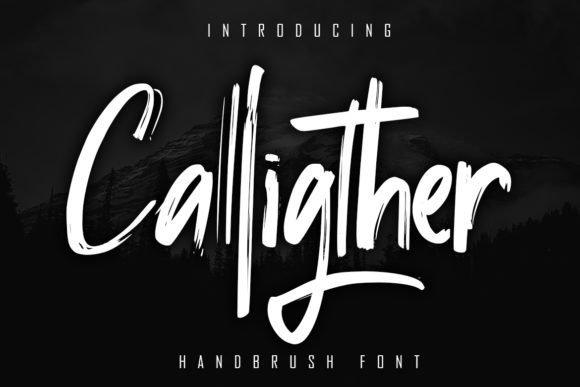
The Power of Calligther Font: Elevate Your Designs with Bold and Chunky Lettering
I’ll never forget the design project that led me to discover Calligther Font. I was working on a branding project for a local boutique, and I needed a font that would make their logo stand out. After hours of searching, I stumbled upon Calligther, and it was love at first sight! The bold, chunky lettering instantly caught my attention, and I knew I had found the perfect fit. In this article, I’ll share my experience with Calligther, its features, and how to make the most of this amazing font.
A Personal Review: What I Love About Calligther
Here’s what makes Calligther a standout font:
- ✨ Unique and eye-catching design: Calligther’s bold and chunky lettering makes it perfect for headlines, titles, and display text.
- ✅ Easy to read: Despite its boldness, Calligther remains surprisingly legible, even at smaller sizes.
- 💫 Versatile: This font can be used for a wide range of projects, from branding and advertising to crafting and DIY projects.
While Calligther is an excellent font, it’s not without its quirks:
- 🤔 Limited use for body text: Due to its boldness, Calligther is best suited for display text and headlines. It may not be the best choice for longer blocks of text.
- ⚠️ Kerning issues at smaller sizes: Like many bold fonts, Calligther may require some manual kerning adjustments at smaller sizes to ensure optimal readability.
A Practical Guide to Using Calligther
- Explore stylistic alternates and glyphs to add more variety to your text.
The Story Behind Calligther
Calligther was created by a talented font designer who drew inspiration from traditional brush pen lettering. The designer’s goal was to create a font that would capture the essence of hand-drawn lettering while still being legible and versatile. The result is a font that is both bold and beautiful, perfect for making a statement in any design project.
| Font Name | Calligther Font |
| Author | Skiiller Studio |
| What is Calligther Font? | Calligther Font is a bold and chunky lettered display font, created with the help of a brush pen. |
| What is Calligther best used for? | Calligther is best used for headlines, titles, and display text in design projects, such as branding, advertising, and crafting. |
| Is Calligther suitable for body text? | No, Calligther is not suitable for body text due to its boldness. It’s best used for display text and headlines. |